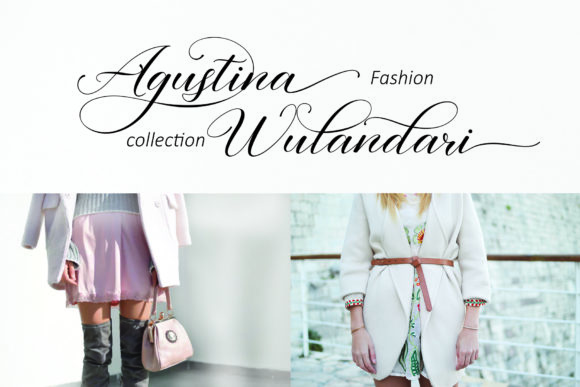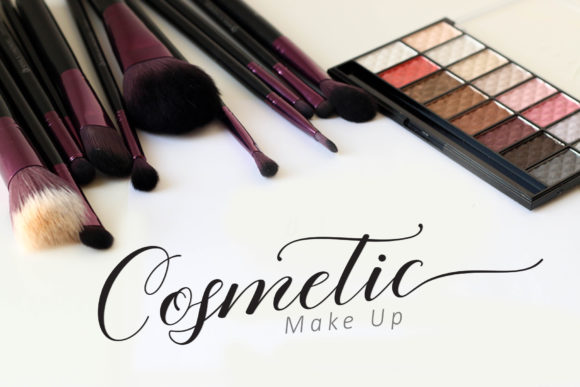
Eliyamoli Font
db-ku.com - Script & Handwritten -- Eliyamoli is a stylish and bold script font with amazing swashes. It will take any craft idea to the next level.